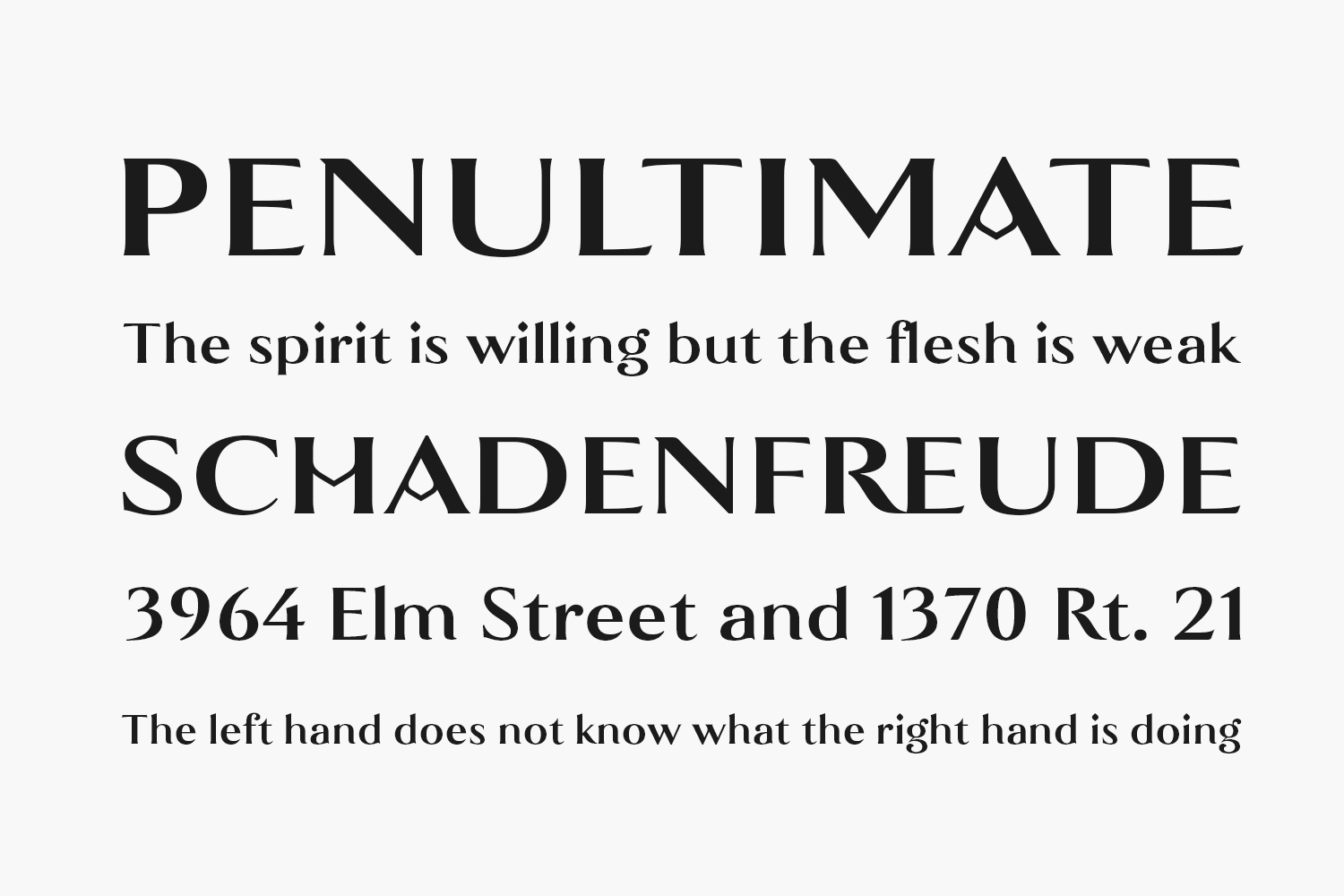
Histograph Free Font is a captivating serif font that effortlessly blends elegance with a trendy appeal. With its PUA encoding, accessing all the glyphs and swashes is a breeze, enhancing your design experience. Discover the versatility of Histograph and let its stylish charm inspire you to create truly spectacular designs. Fall in love with the endless possibilities this font offers and watch as your creative ideas come to life in the most remarkable way. Histograph Free Font is free for personal use only. Please purchase the full version for commercial use.